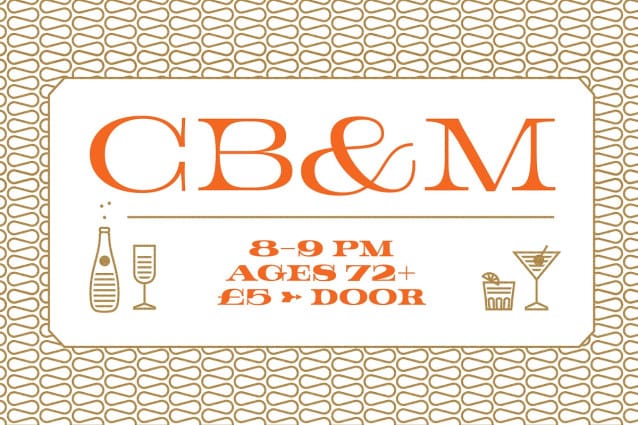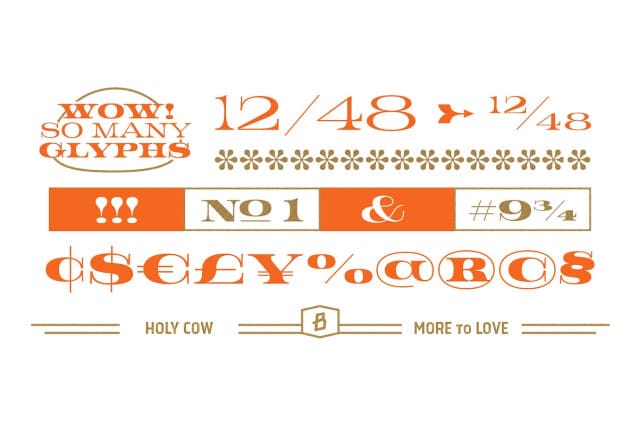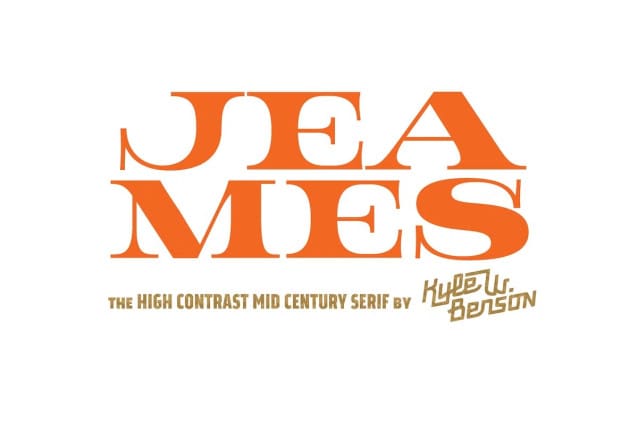
Jeames Font
Jeames Font brings familiarity to the often detached extended serif genre. The curved, heavy, joints let the letters bounce along while the proportions and contrast keep your eyes grounded.
This mid century inspired family of three weights is intended for large titles and display. The set includes language support, opentype fractions, and other fun glyphs.